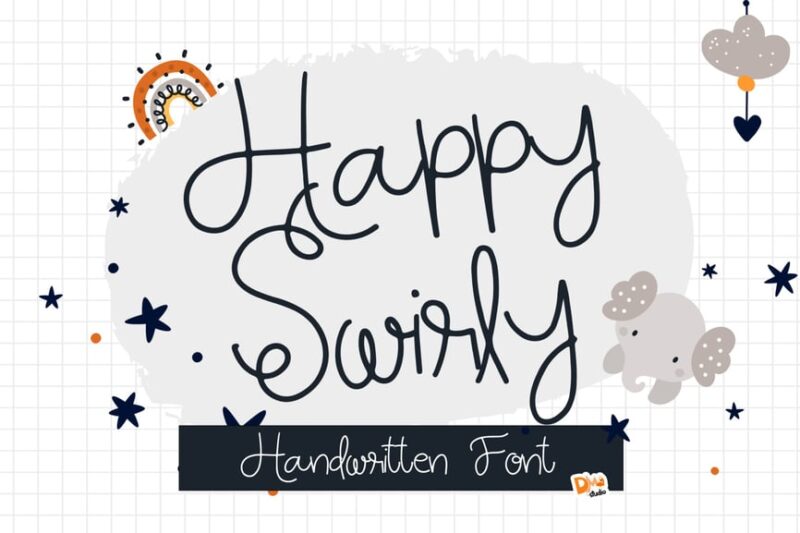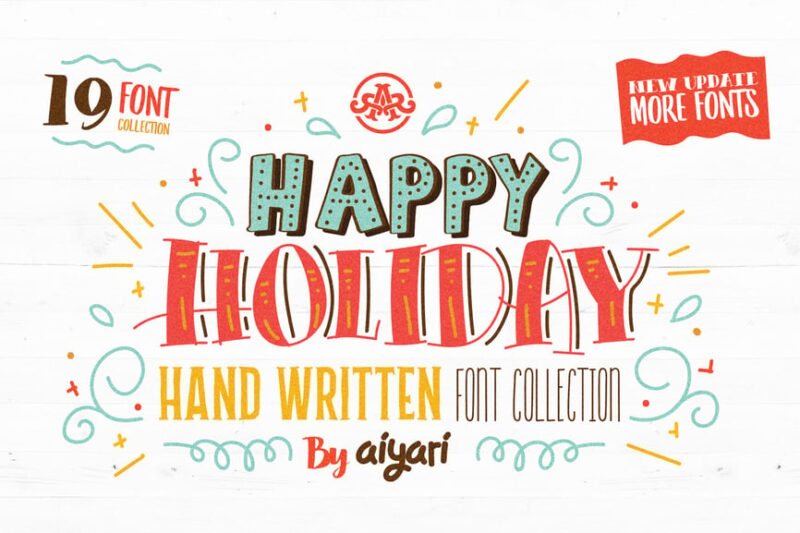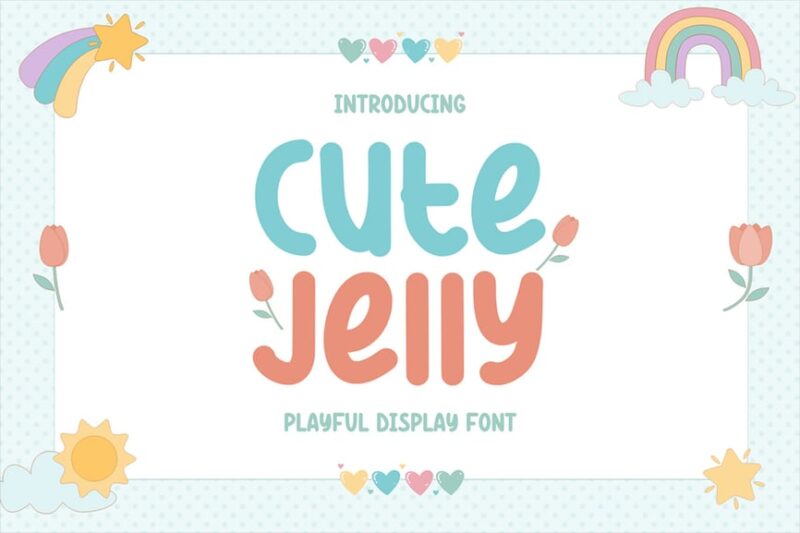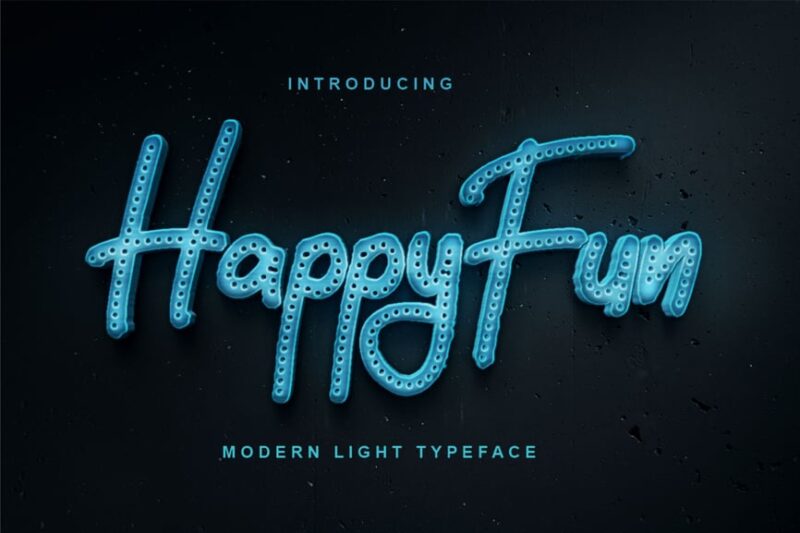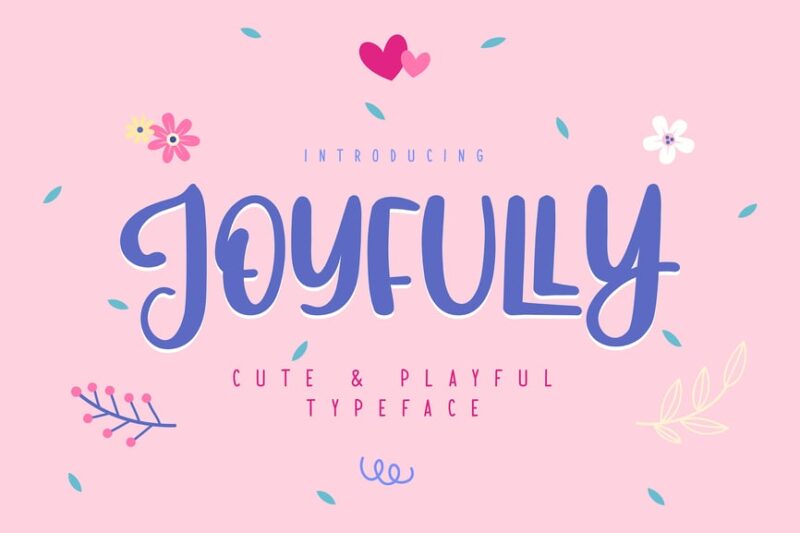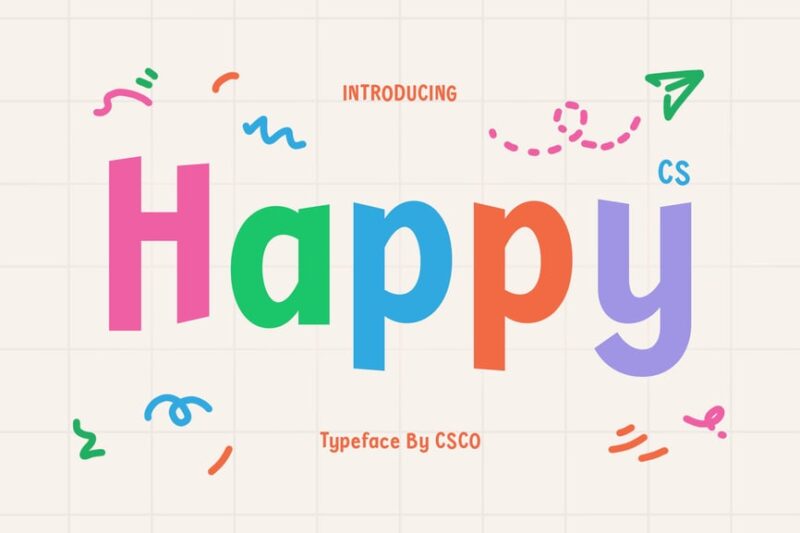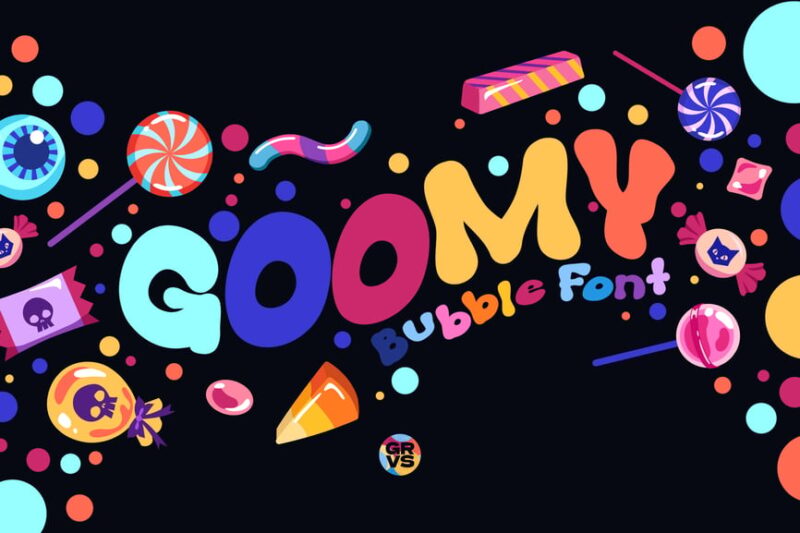
Picture this: you’re scrolling through your phone at 11:47 PM, suddenly remembering it’s your best friend’s birthday tomorrow. Panic sets in. You need to whip up something special, something that screams “I definitely didn’t forget and throw this together last minute.” Enter the magical world of happy birthday fonts – your secret weapon for turning any rushed design into a celebration masterpiece.
There’s something absolutely enchanting about the right typography that can instantly transform a simple “Happy Birthday” message into pure joy. Whether you’re designing party invitations, social media posts, or that last-minute birthday card, the font you choose sets the entire mood for the celebration.
In this comprehensive guide, we’ll explore the most festive, fun, and fabulous happy birthday fonts that are making waves in 2026. From playful scripts that dance across the page to bold display fonts that command attention, we’ve got every birthday celebration covered.
What Makes a Font Perfect for Birthday Celebrations?
Before we dive into our curated collection of birthday fonts, let’s understand what gives certain typefaces that irresistible party vibe.
Playful Personality
The best happy birthday fonts have an inherent sense of fun baked right into their letterforms. Think bouncy baselines, quirky character shapes, and that unmistakable “let’s party” energy that makes you smile just looking at it.
These fonts often feature irregular letter spacing, hand-drawn imperfections, or whimsical flourishes that give them a celebratory spirit. It’s like each letter is ready to jump off the page and join the party.
Readable Excitement
While personality is crucial, birthday fonts still need to be legible. The best ones strike that perfect balance between festive flair and clear communication. After all, what good is a beautiful birthday message if people can’t actually read it?
Look for fonts that maintain good letter spacing and clear character differentiation, even when they’re being playful. Your birthday wishes should be as easy to read as they are delightful to look at.
Versatile Celebration Vibes
Great birthday fonts work across different age groups and celebration styles. Whether you’re designing for a child’s superhero party, a teenager’s trendy bash, or an elegant adult milestone celebration, the right font should adapt to the occasion while maintaining its festive spirit.
The Most Spectacular Happy Birthday Fonts of 2026
Boba Party
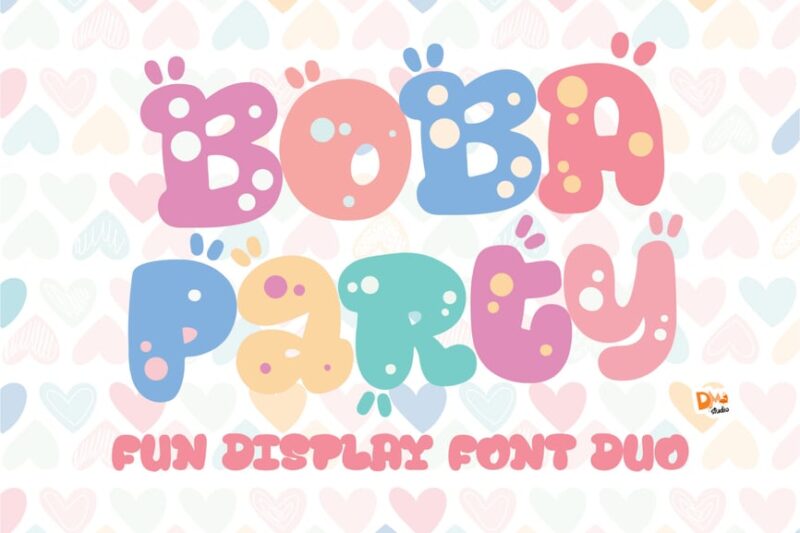
Boba Party is a delightful script font perfect for creating joyful Happy Birthday designs. Its playful and decorative style makes it ideal for birthday cards, invitations, and anniversary celebrations, adding a festive touch to any project.
Christmas Birthday
Christmas Birthday is a magical decorative font that combines the spirit of Christmas with birthday cheer. This unique Happy Birthday font is perfect for creating enchanting designs for winter celebrations and holiday-themed birthday parties.
Birthday – Modern Signature Font
This modern signature font is an elegant choice for Happy Birthday designs. Its flowing script style adds a touch of sophistication to birthday cards, invitations, and congratulatory messages, making it a versatile option for various celebratory projects.
Happy Day – cutout kids font
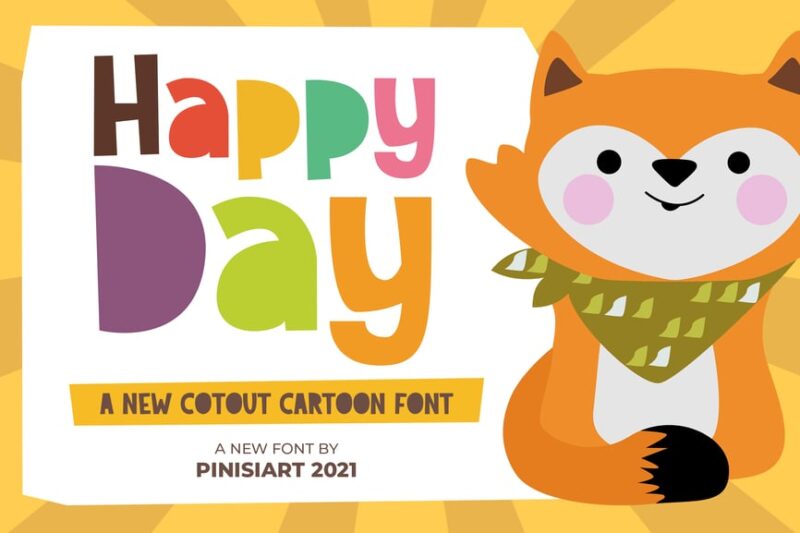
Happy Day is a charming cutout kids font that’s perfect for creating playful birthday designs. This sans-serif typeface brings a youthful energy to children’s birthday invitations, party decorations, and other fun celebratory materials.
Fontarian Party
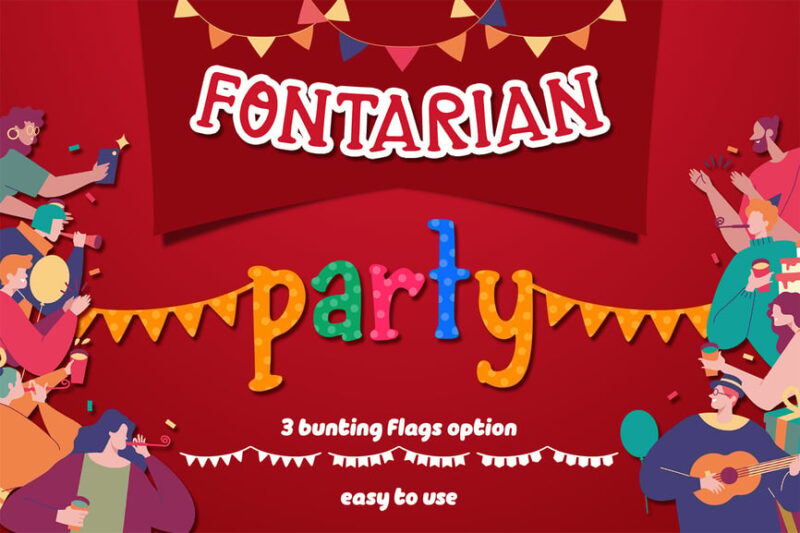
Fontarian Party is a festive decorative font that’s ideal for creating eye-catching Happy Birthday designs. This birthday font features unique party-themed symbols, making it perfect for invitations, banners, and other celebratory graphics.
Party Balloon – Balloon Font
Party Balloon is a fun and buoyant decorative font that brings a festive atmosphere to any Happy Birthday design. This balloon-inspired typeface is perfect for creating cheerful birthday invitations, party flyers, and celebratory social media posts.
Happy Joy – Playful Chunky Font
Happy Joy is a playful, chunky sans-serif font that exudes cheerfulness. Its bold and cute style makes it an excellent choice for creating fun Happy Birthday designs, especially for children’s parties and lighthearted celebrations.
After all, birthdays are about celebrating life, love, and all the wonderful moments that make us who we are. Your font choices should reflect that same spirit of celebration and remind everyone that life is worth celebrating – one beautifully designed birthday message at a time.